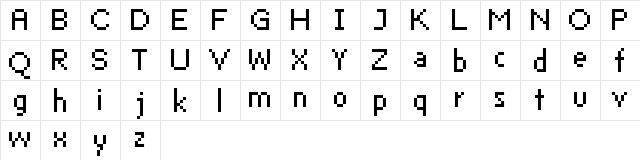
FFF Neostandard Trial Regular
Design Context for FFF Neostandard Trial Typeface
FFF Neostandard Trial is a composed and adaptable typeface that performs quietly and consistently across a wide range of design contexts.
Pro Tip: Use FFF Neostandard Trial in both headline and body roles to test its range before committing to a single application.